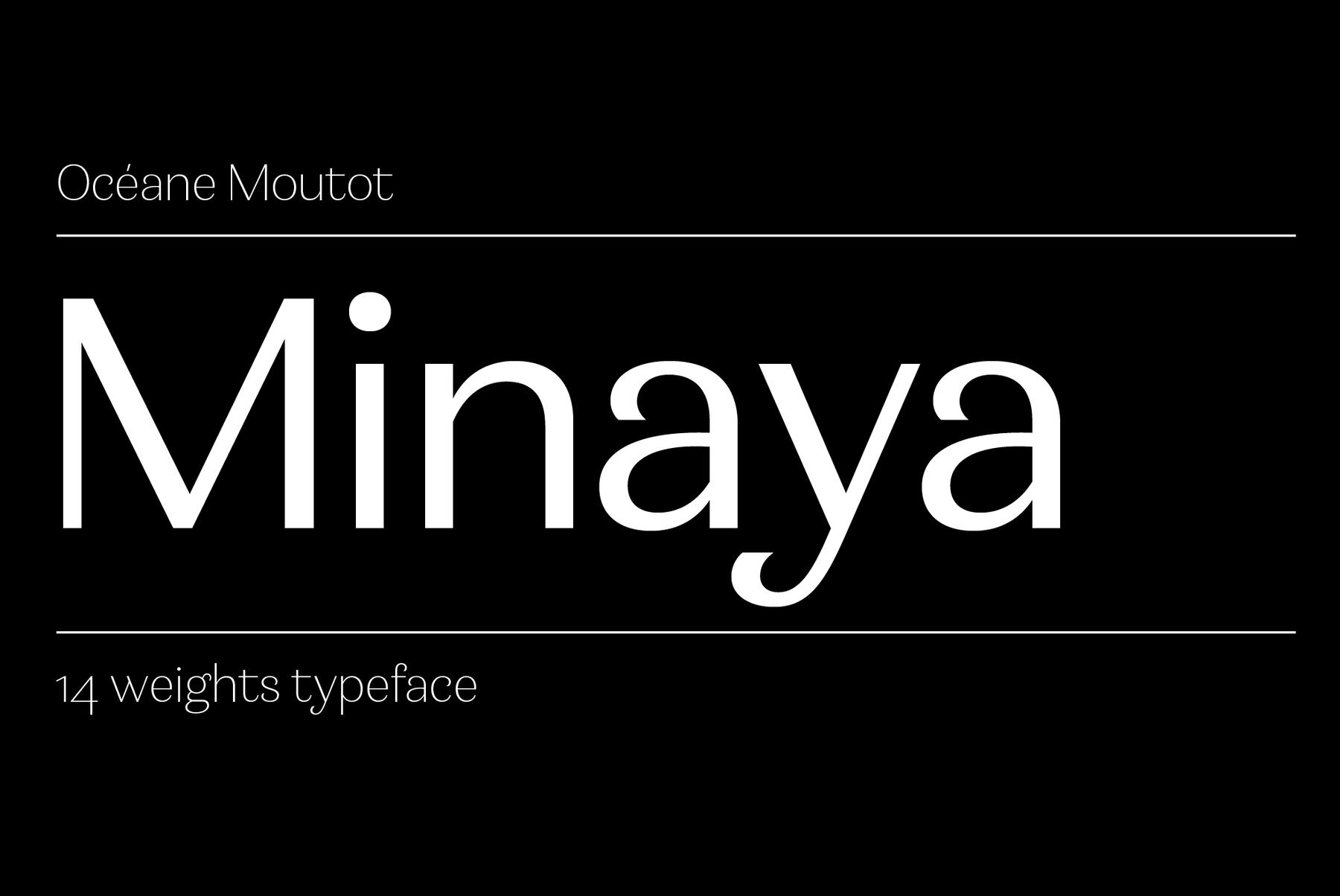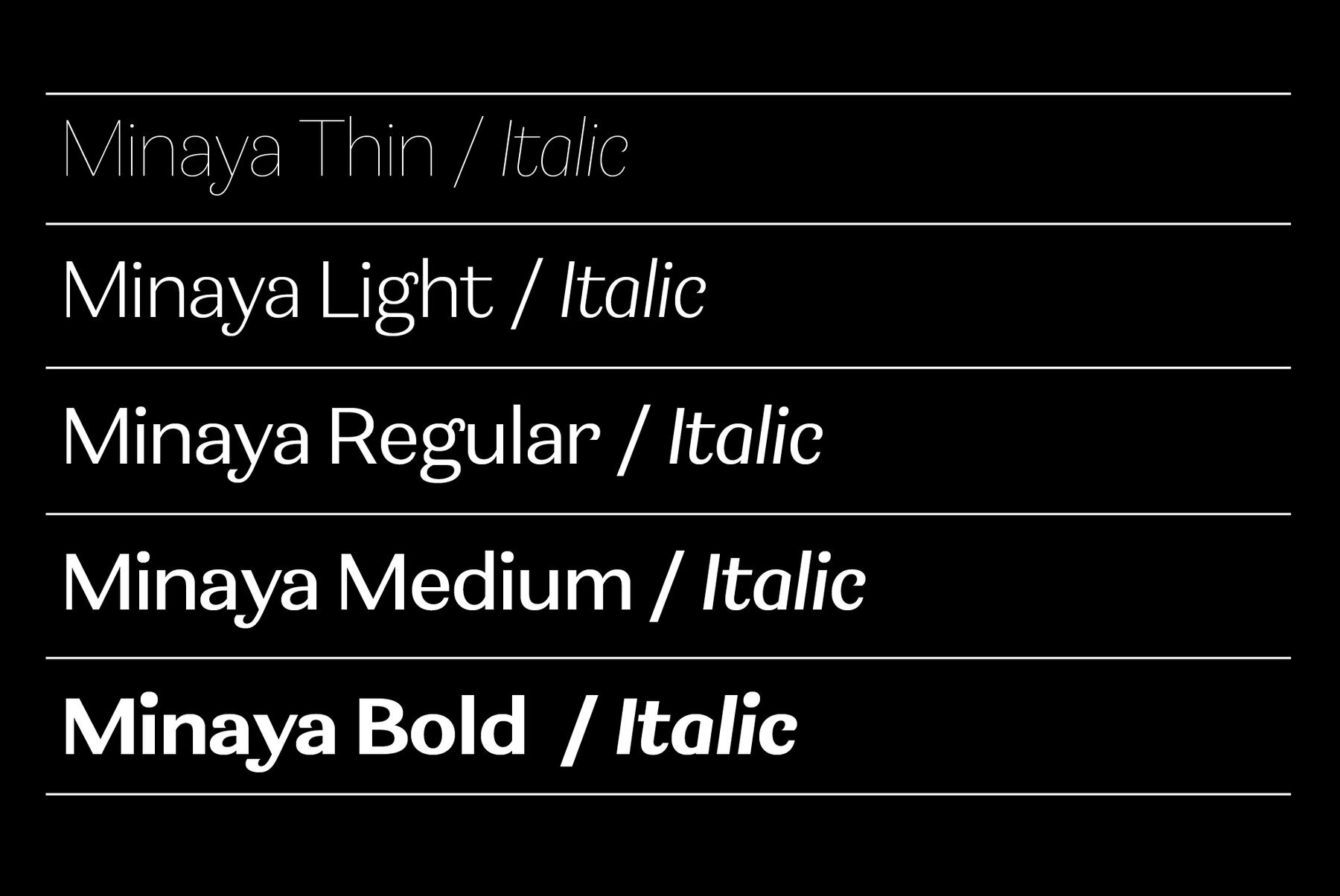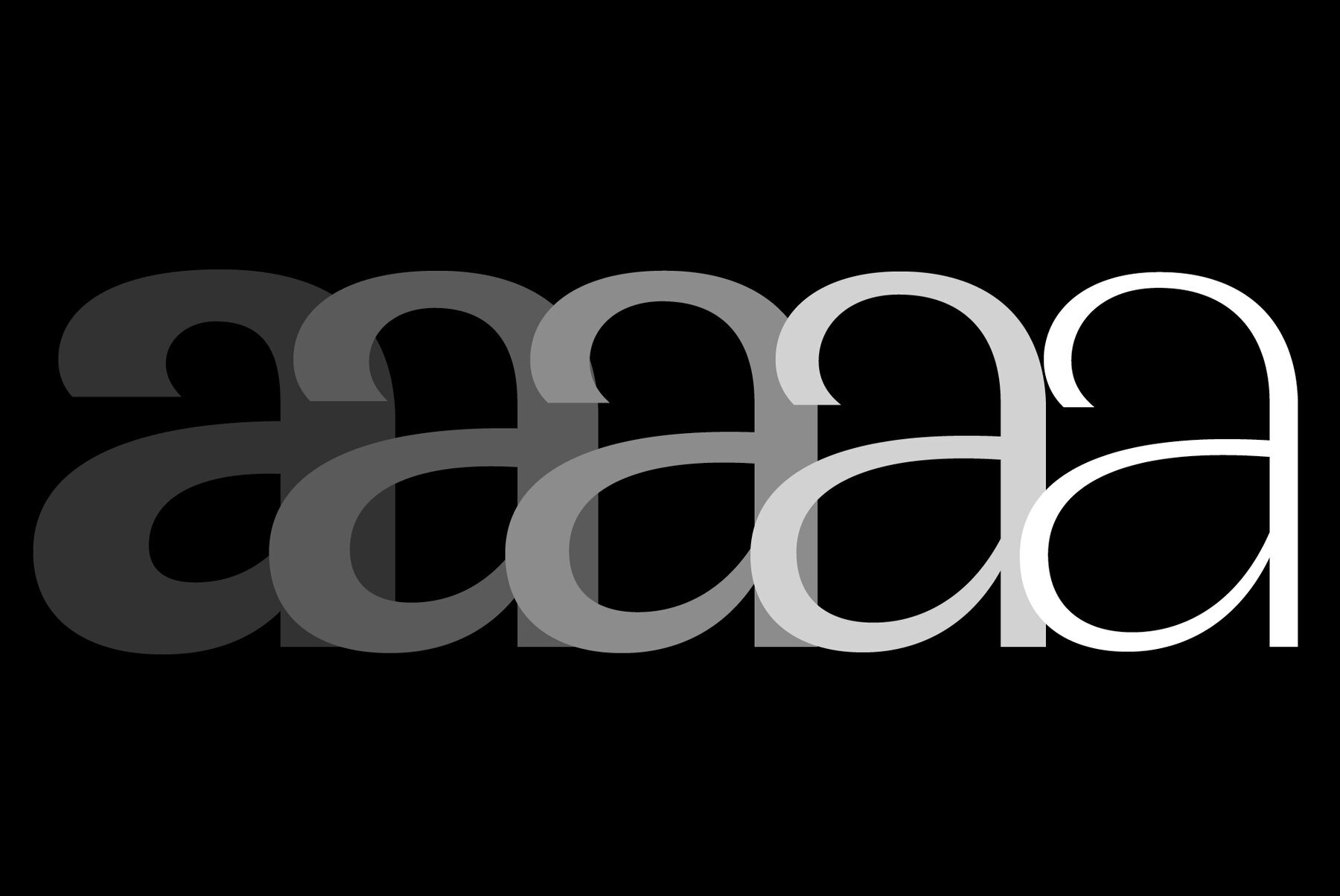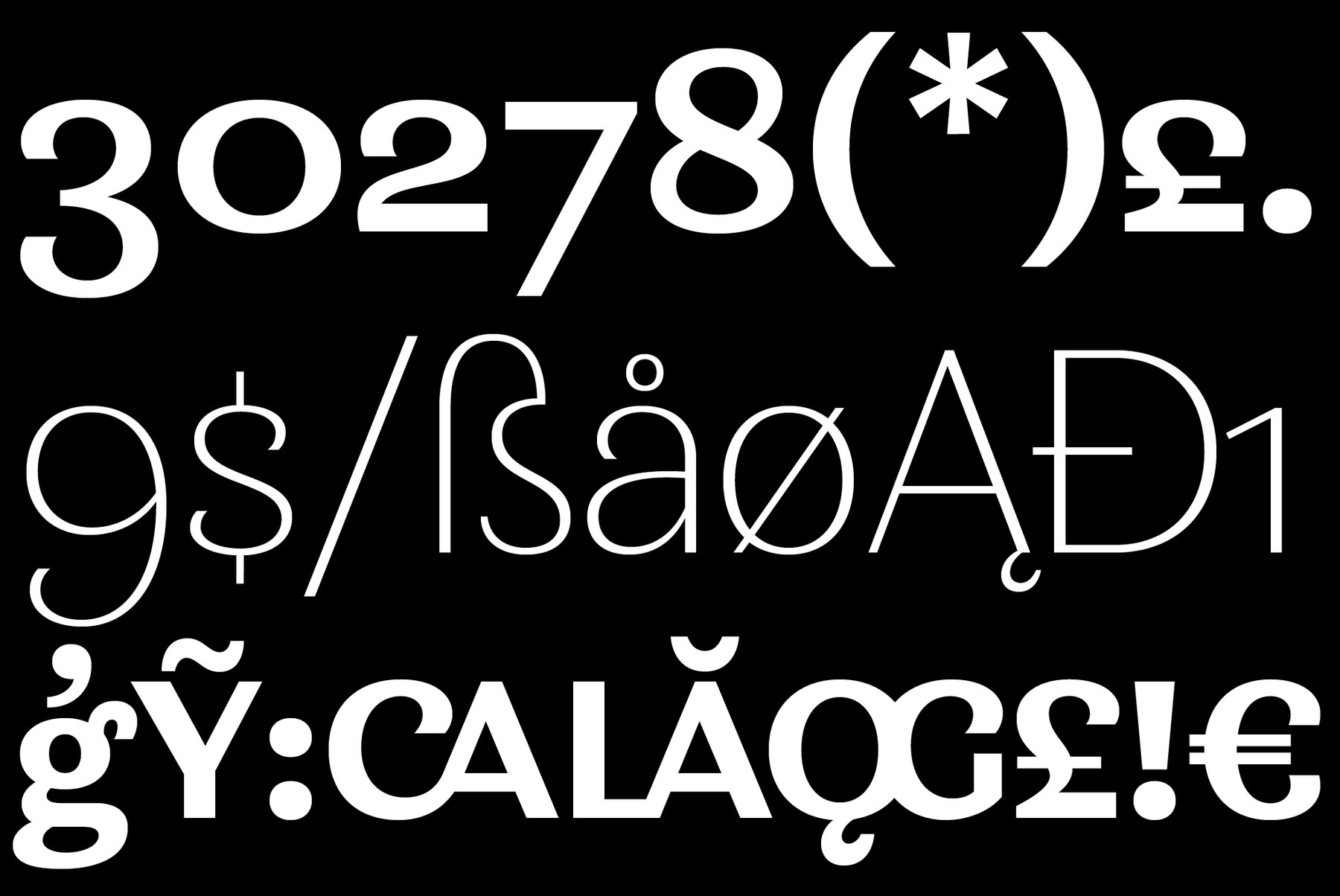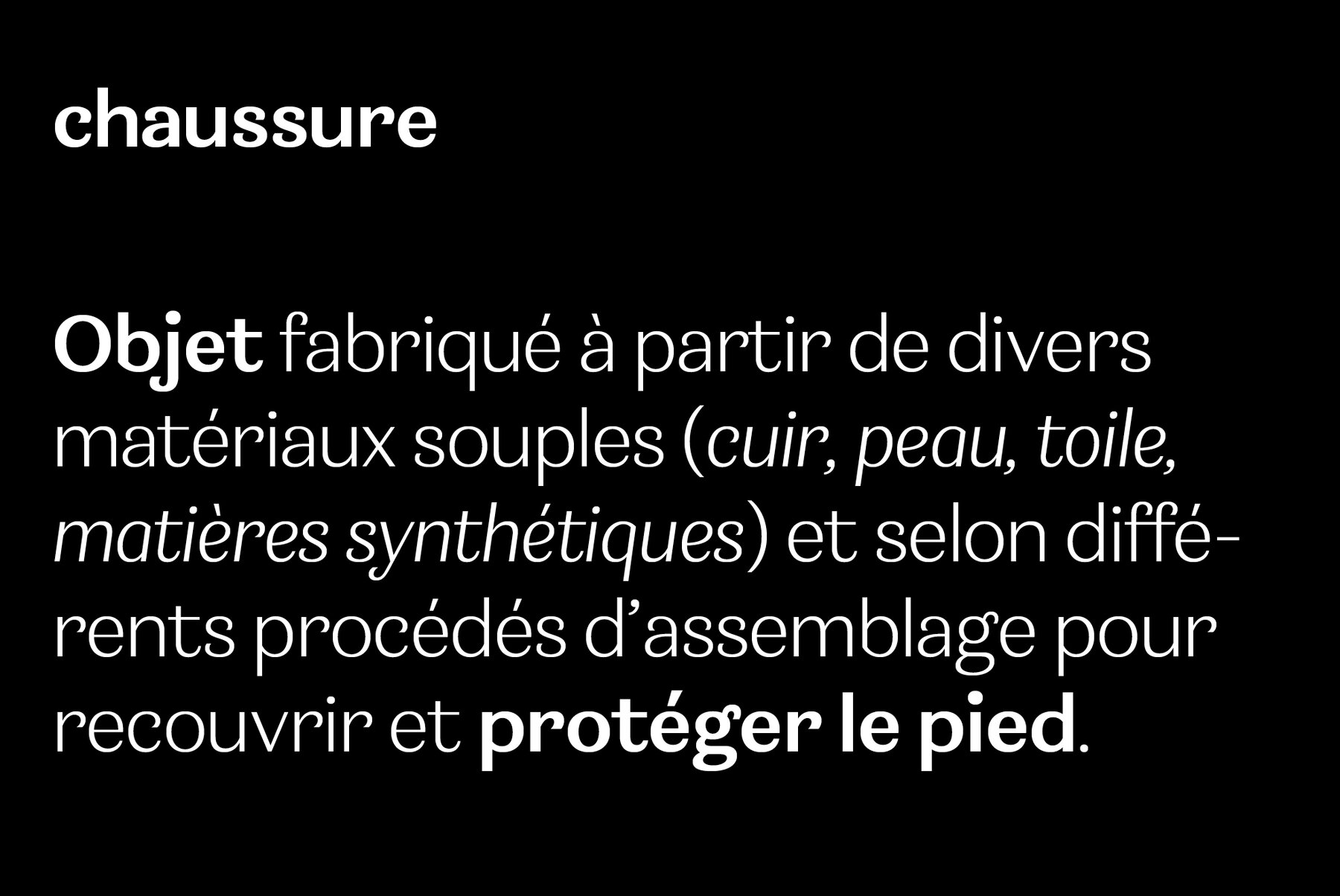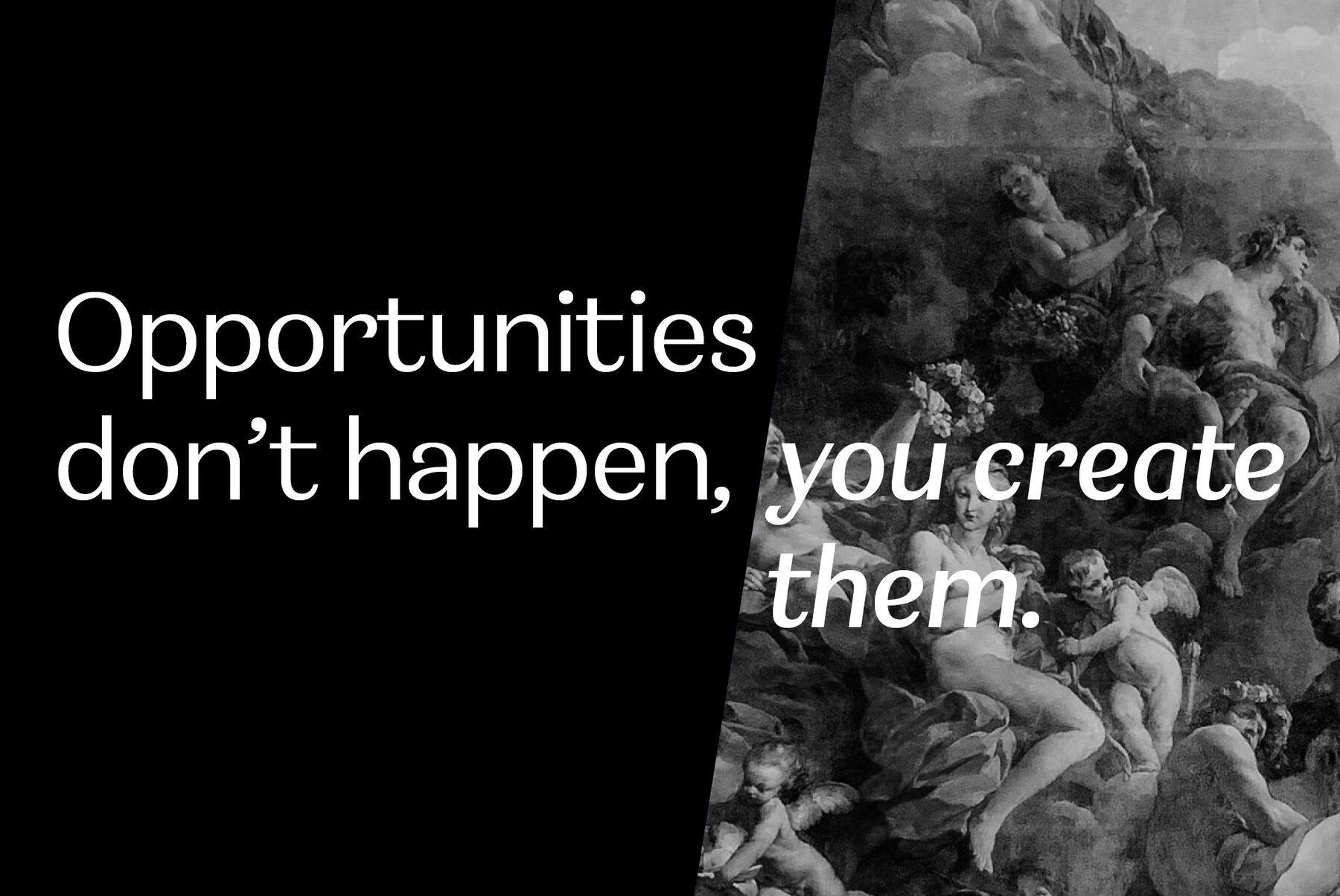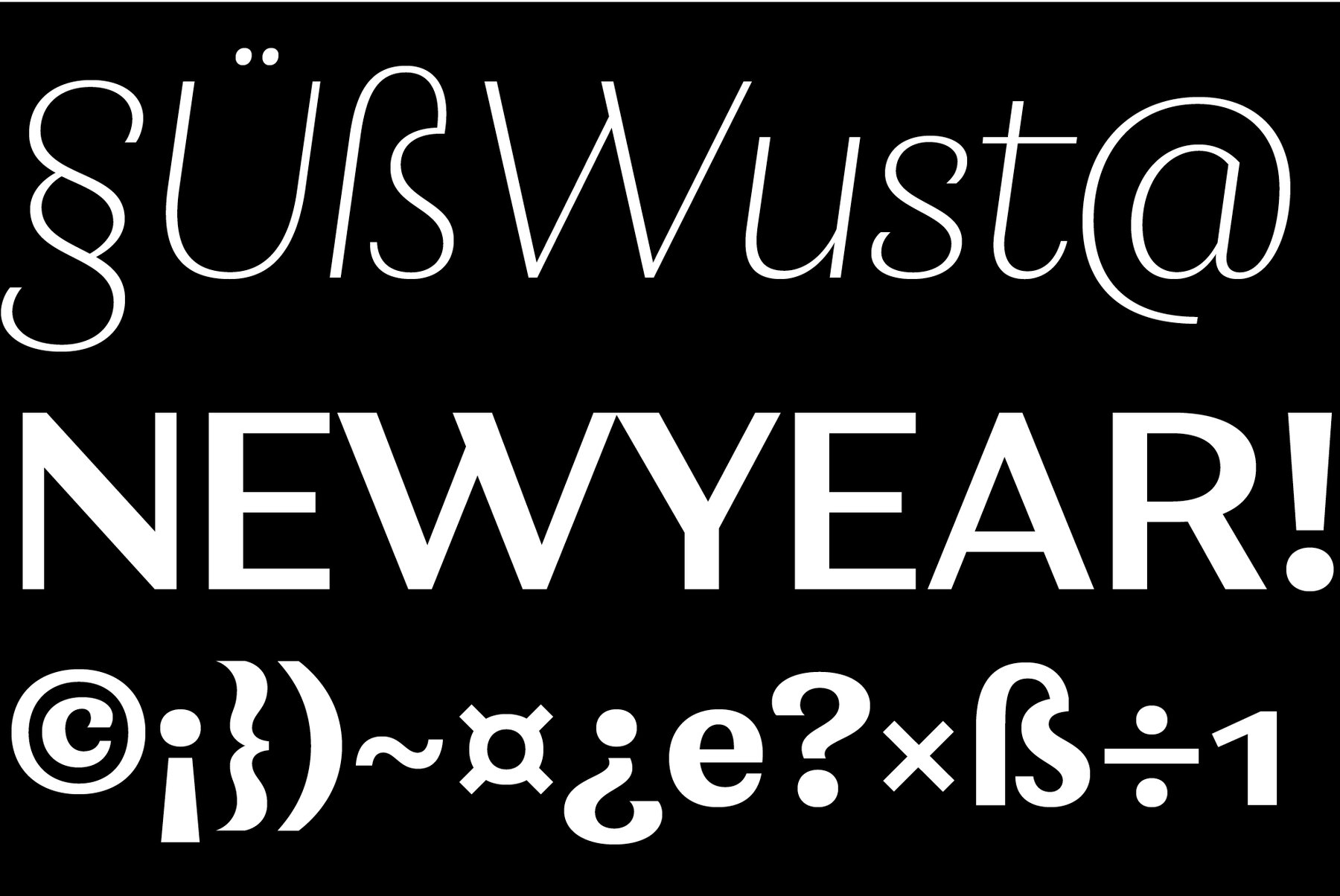
Minaya Font
Minaya is a lively and versatile sans serif typeface characterized by its playful curves, rounded terminals, and a clean, modern appearance. Designed with a touch of whimsy and charm, Minaya strikes a perfect balance between simplicity and personality. Its approachable design makes it a great choice for a variety of applications, from branding and packaging to editorial work, digital interfaces, and beyond. Minaya is available in 14 styles, ranging from Thin to Bold, with both Roman and Italic variations, providing flexibility for any project. Its harmonious letterforms ensure readability while adding a dash of playfulness to your designs.
Océane is a french graphic and type design since 2016. In 2020, she published her first font, Honesty, a 16-style flared, lapidary or incised sans typeface family that took inspiration from the Trajan column carvings and Berthold Wolpe's Albertus (1938). Two typefaces are currently published.